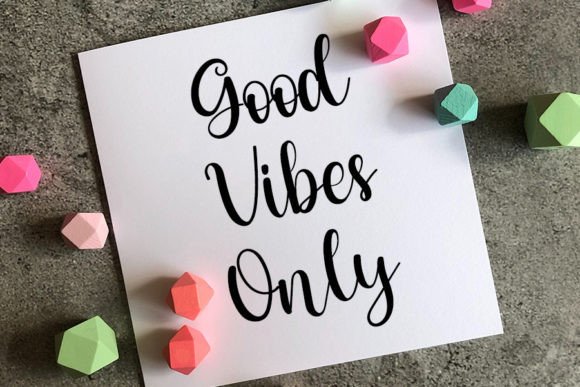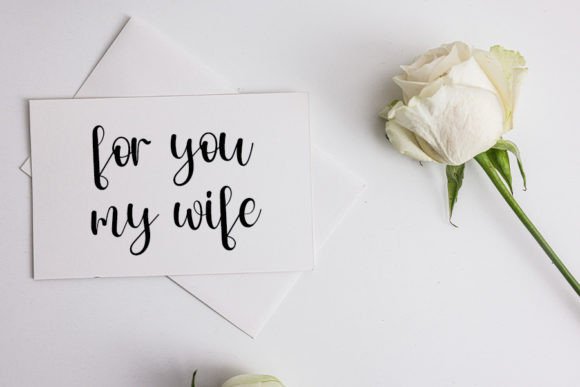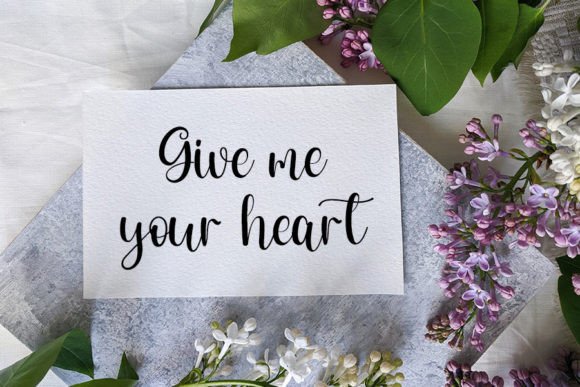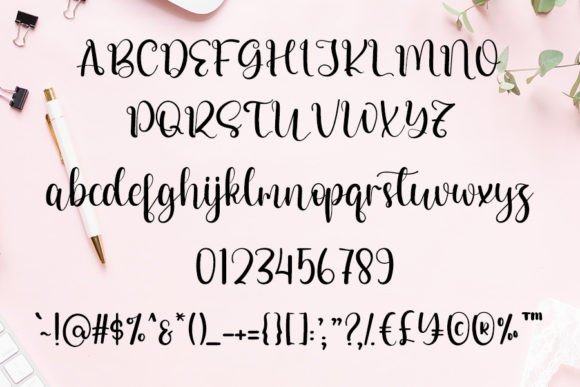
The Bowling Font: A Timeless, Handwritten Beauty for Your Designs
I’ll never forget the moment I stumbled upon the Bowling Font while working on a project for a client who wanted a elegant, yet playful touch. I had been searching for the perfect font for hours, trying out various options, but nothing seemed quite right. That was until I saw the Bowling Font – its elegant, cursive lines and distinct style immediately caught my eye. I knew right then and there that it was the perfect fit for the project.
So, what makes the Bowling Font so special? Here are a few things that I absolutely love:
- ✨ Elegant, cursive lines that add a touch of sophistication to any design
- 💫 Incredibly versatile – works well for both digital and print designs
- 🎨 Perfect for a wide range of design projects, from wedding invitations to branding materials
- 🤔 The font can be a bit tricky to pair with other fonts – it’s best to stick with simple, sans-serif fonts to avoid visual overload
- ⚠️ Some of the glyphs and special characters can be a bit inconsistent in terms of style
The Story Behind the Bowling Font
The Bowling Font was designed by a talented typographer who wanted to create a font that was both elegant and playful. Inspired by the classic scripts of the past, the designer carefully crafted each letter to ensure that it was not only beautiful, but also highly legible. The result is a font that is both timeless and versatile – perfect for a wide range of design projects.
| Font Name | Bowling Font |
| Author | Kongsi.Co |
| Is the Bowling Font suitable for body text? | While the Bowling Font is highly legible, it’s best suited for headings and titles rather than body text. |